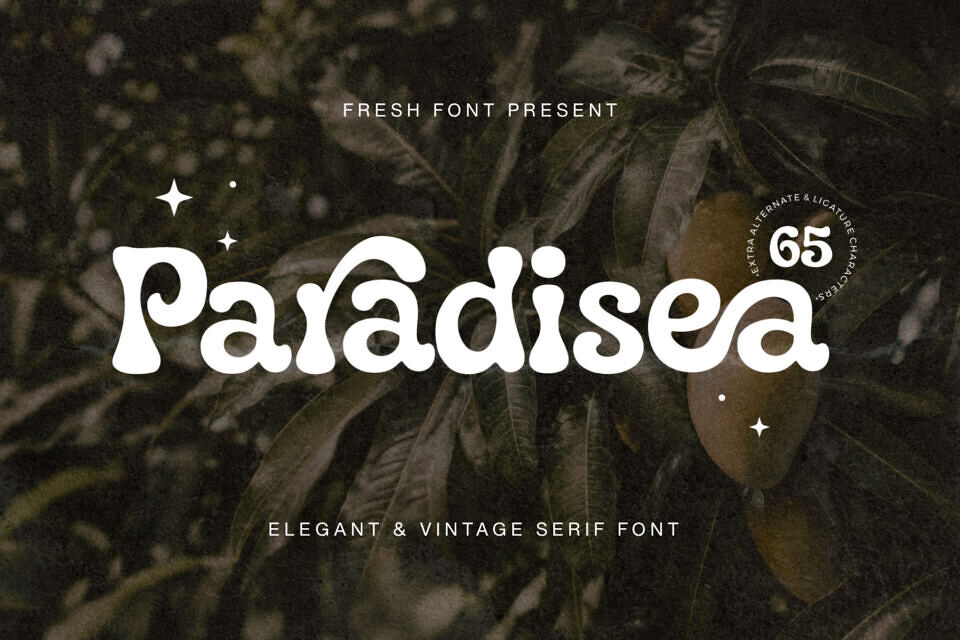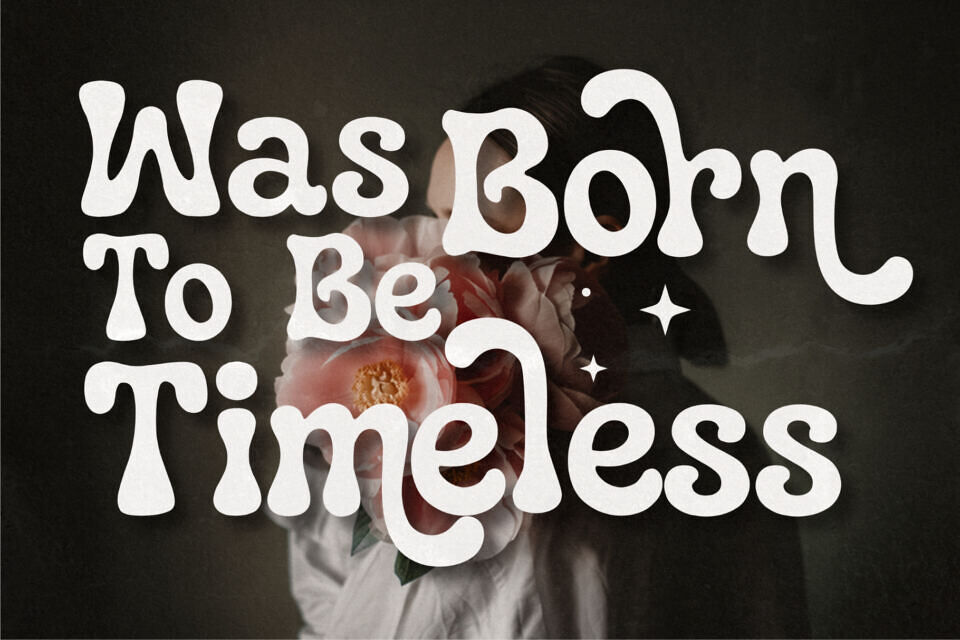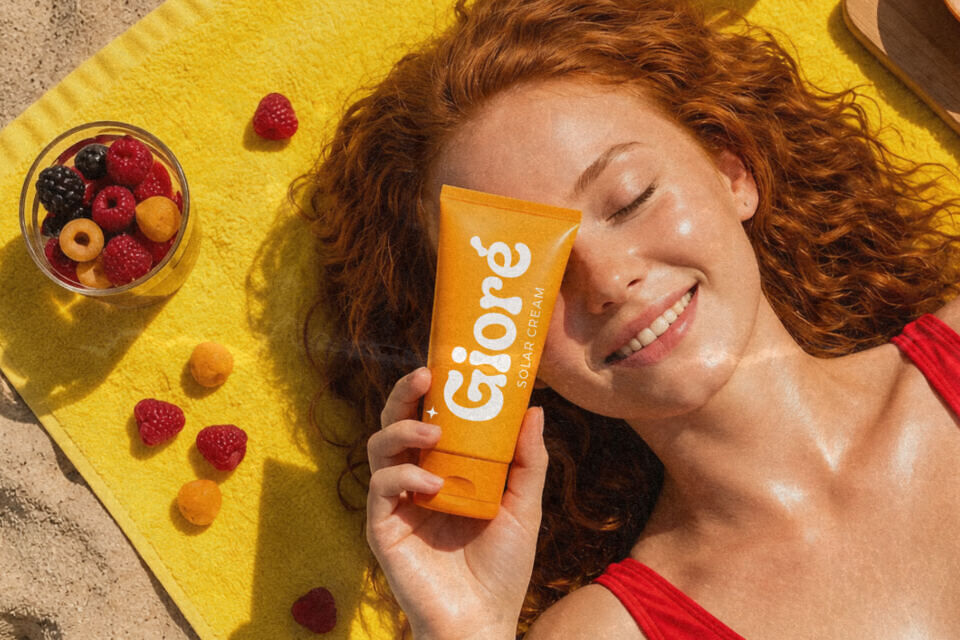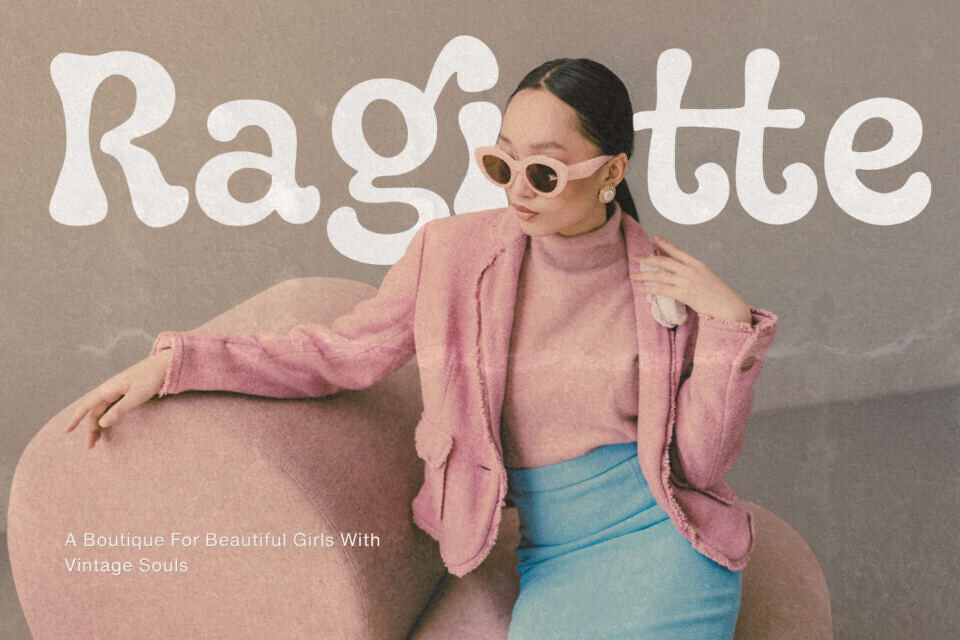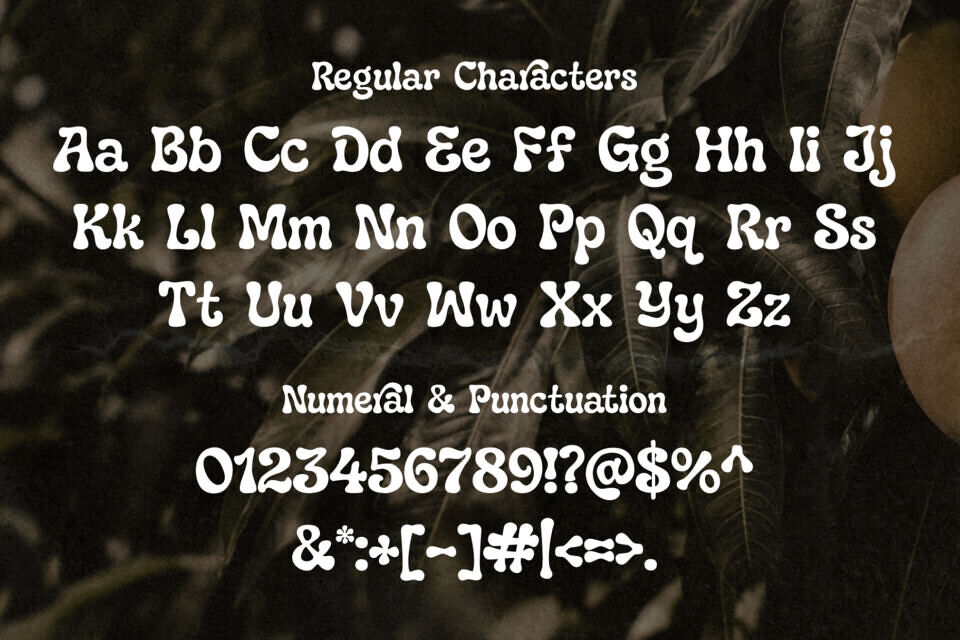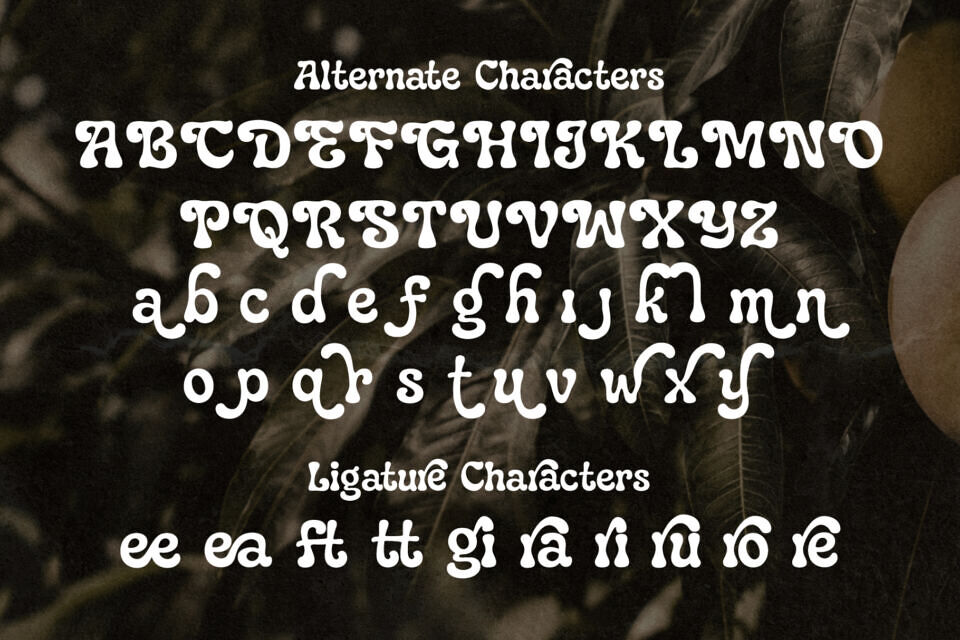
Paradisea Font
Indulge in the nostalgic charm and vintage grace of Paradisea, a serif font crafted with the refined taste of yesteryears while resonating a modern touch. Whether it’s a high street fashion label, a vintage diner, a cosmetic brand, or an editorial campaign, Paradisea seamlessly complements them all.